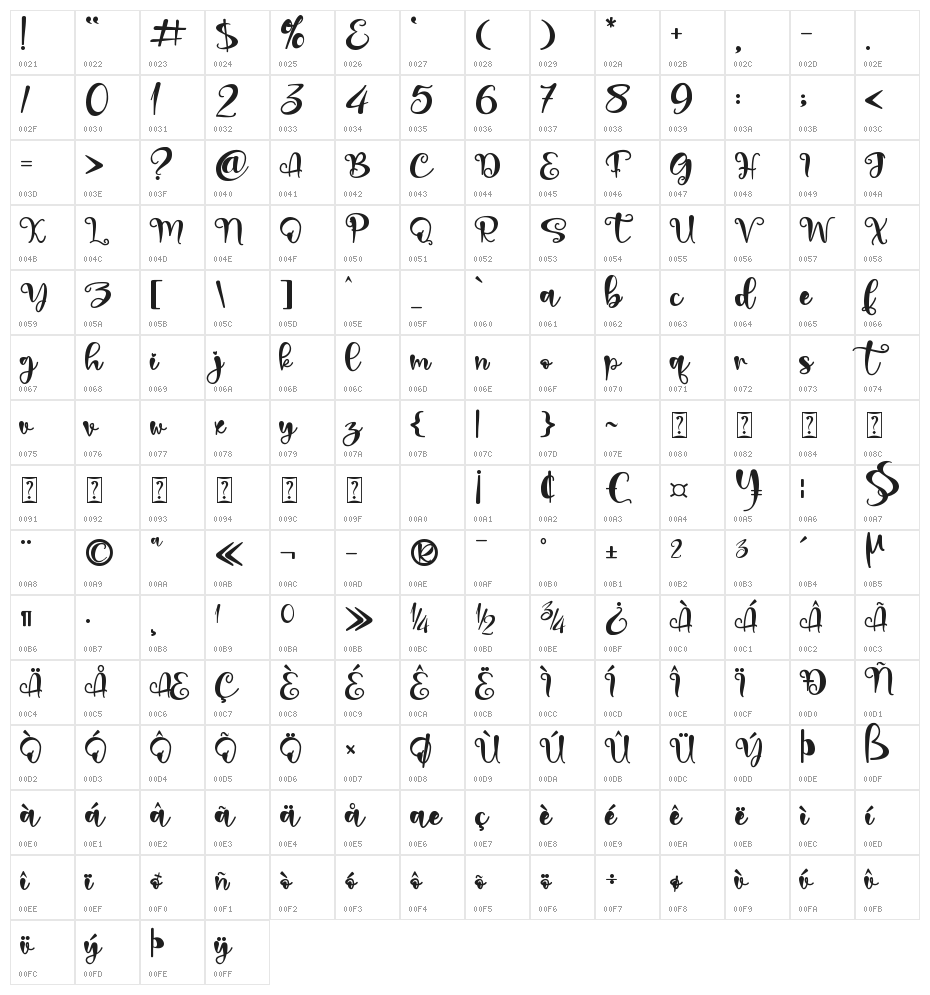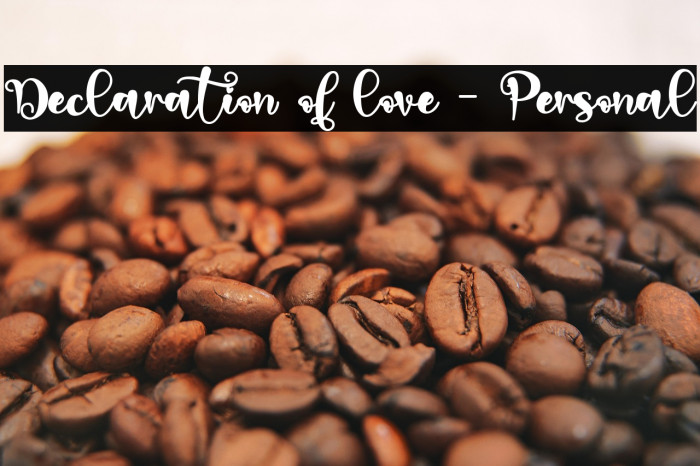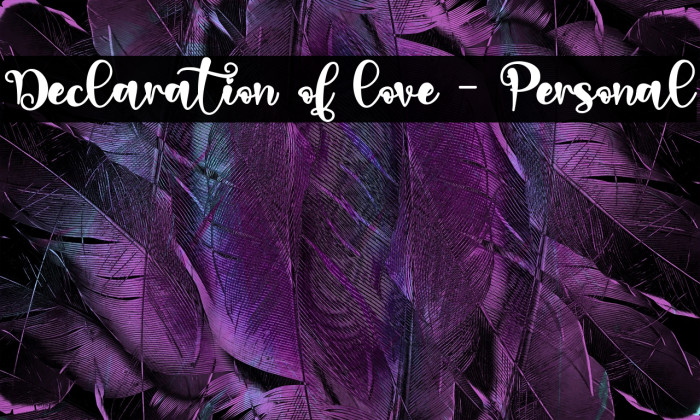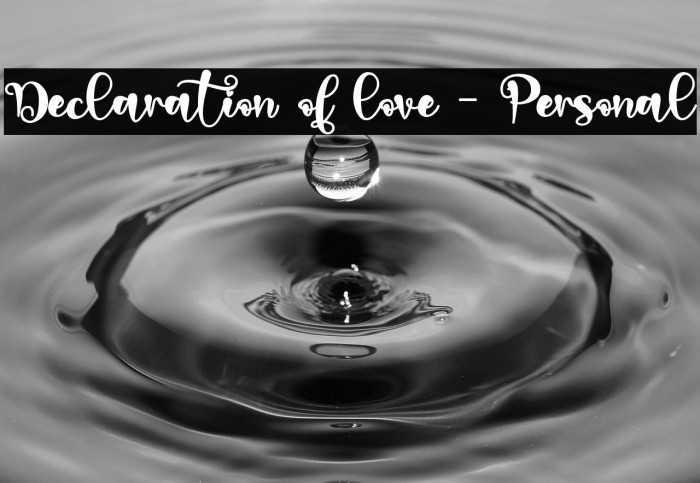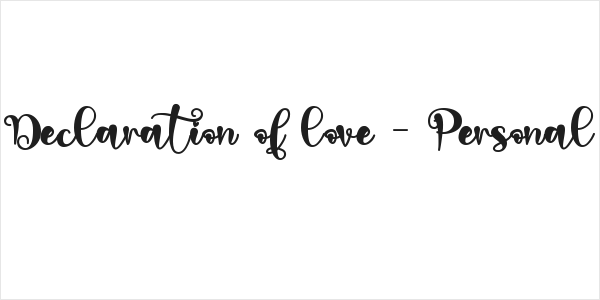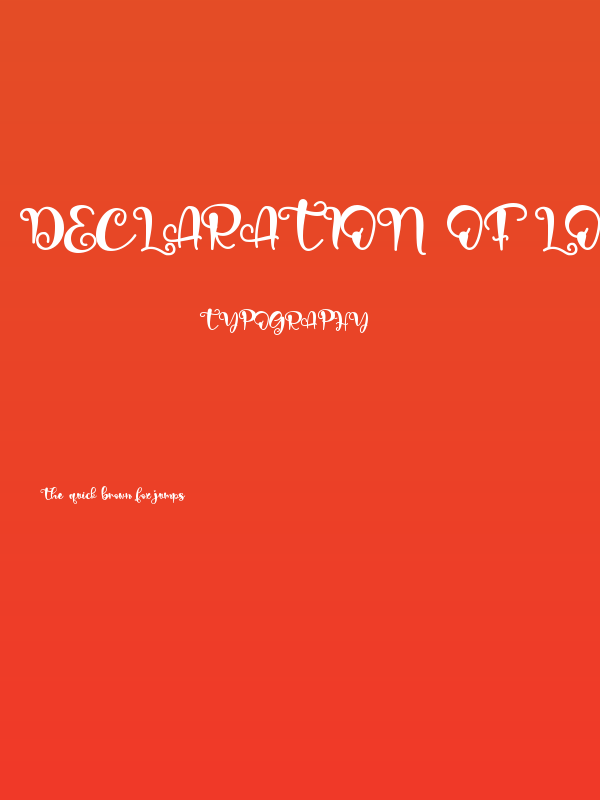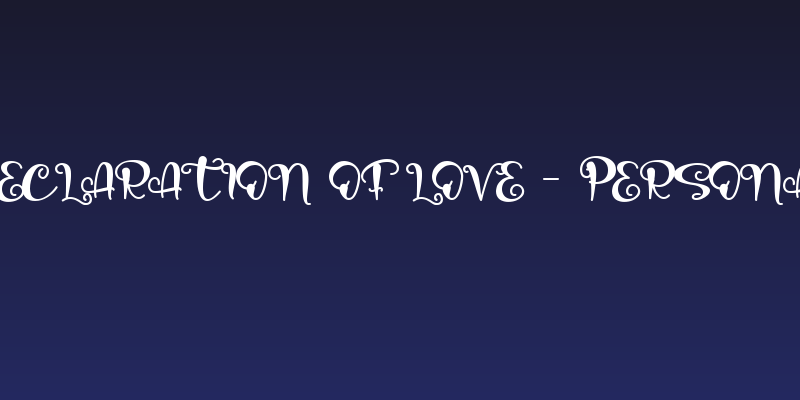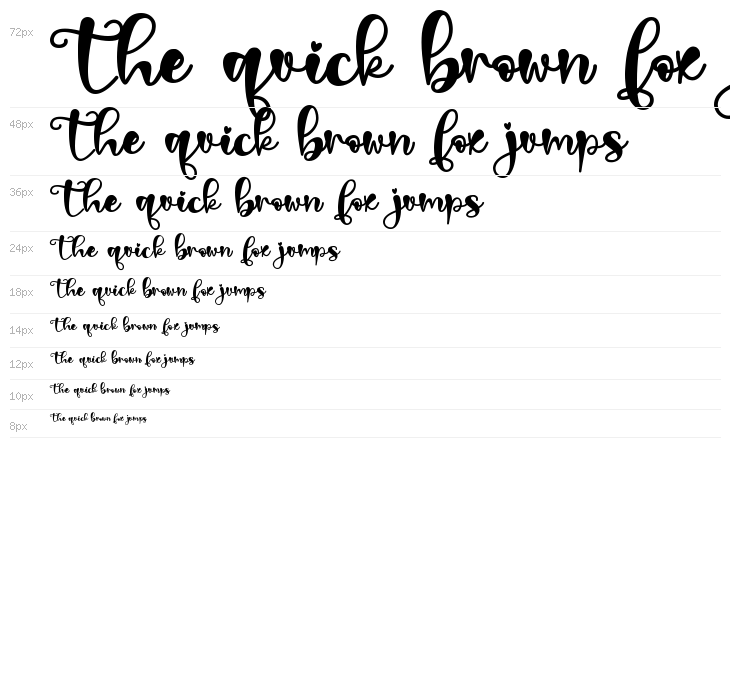
Declaration of love - Personal Font
Declaration of love - Personal Description
This font features a playful and romantic script style with a flowing, cursive design. The characters are adorned with whimsical flourishes and heart motifs, particularly noticeable in the lowercase letters. The uppercase letters maintain a consistent height, while the lowercase letters vary in size, adding to the font's dynamic and lively appearance. The numbers are bold and slightly slanted, complementing the overall style. Special characters are creatively integrated, maintaining the font's decorative theme. This font exudes a sense of joy and affection, making it ideal for projects that require a personal touch.
| Proposed Projects | Ideal for wedding invitations, greeting cards, love letters, and romantic branding. |